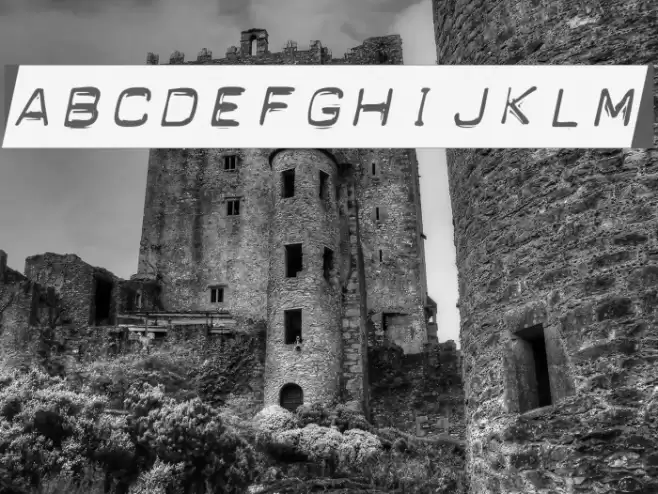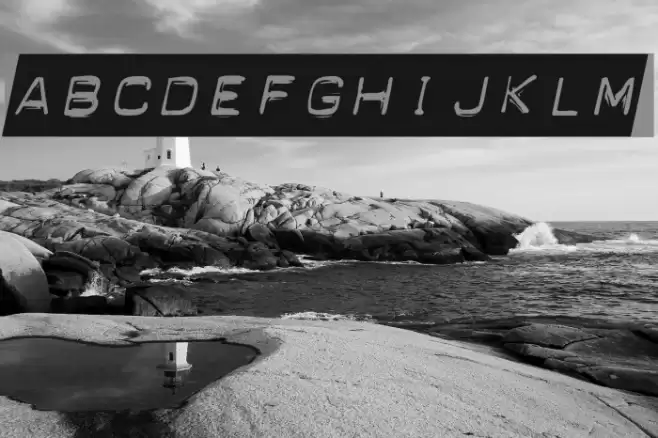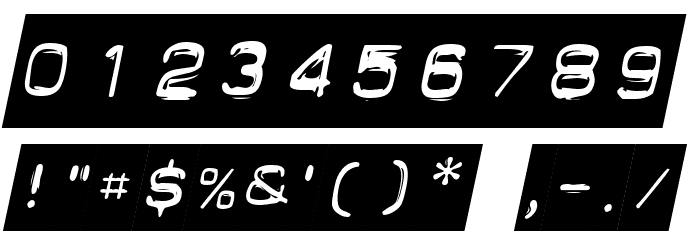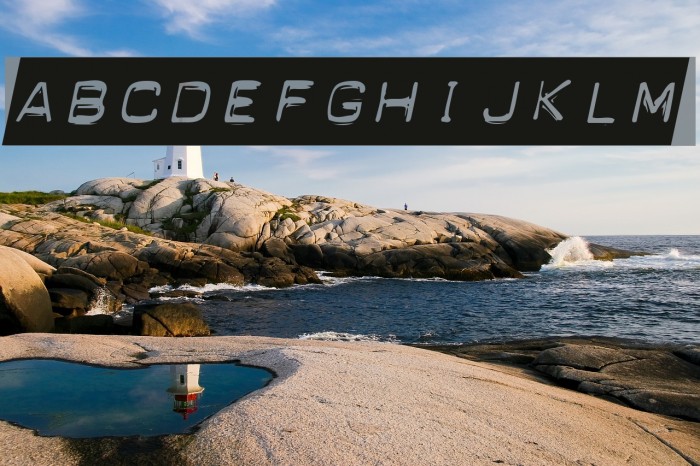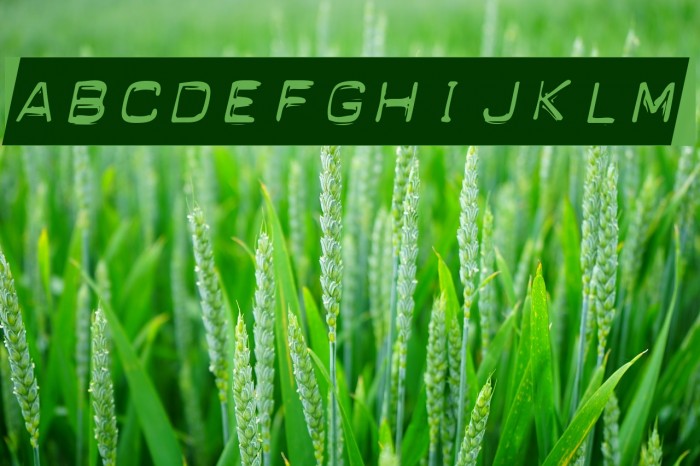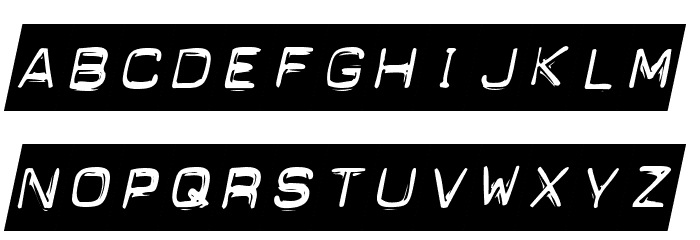
Blackout Italic Font
Blackout Italic Description
This font features a bold, italicized style with a distinct stencil-like appearance. The characters are uppercase and lowercase letters, numbers, and a variety of special symbols. The design incorporates a modern, edgy aesthetic with a slightly distressed look, giving it a unique and dynamic feel. The strokes are thick with a high contrast between the filled and open spaces, creating a striking visual impact. The italic slant adds a sense of motion and urgency, making it suitable for attention-grabbing designs.
A bold, italic stencil-style font with high contrast and a modern, edgy look from Decorative fonts.
- Proposed Projects: Ideal for posters, headlines, branding, and any design requiring a bold, impactful statement.
- Overall Style: Modern, Decorative